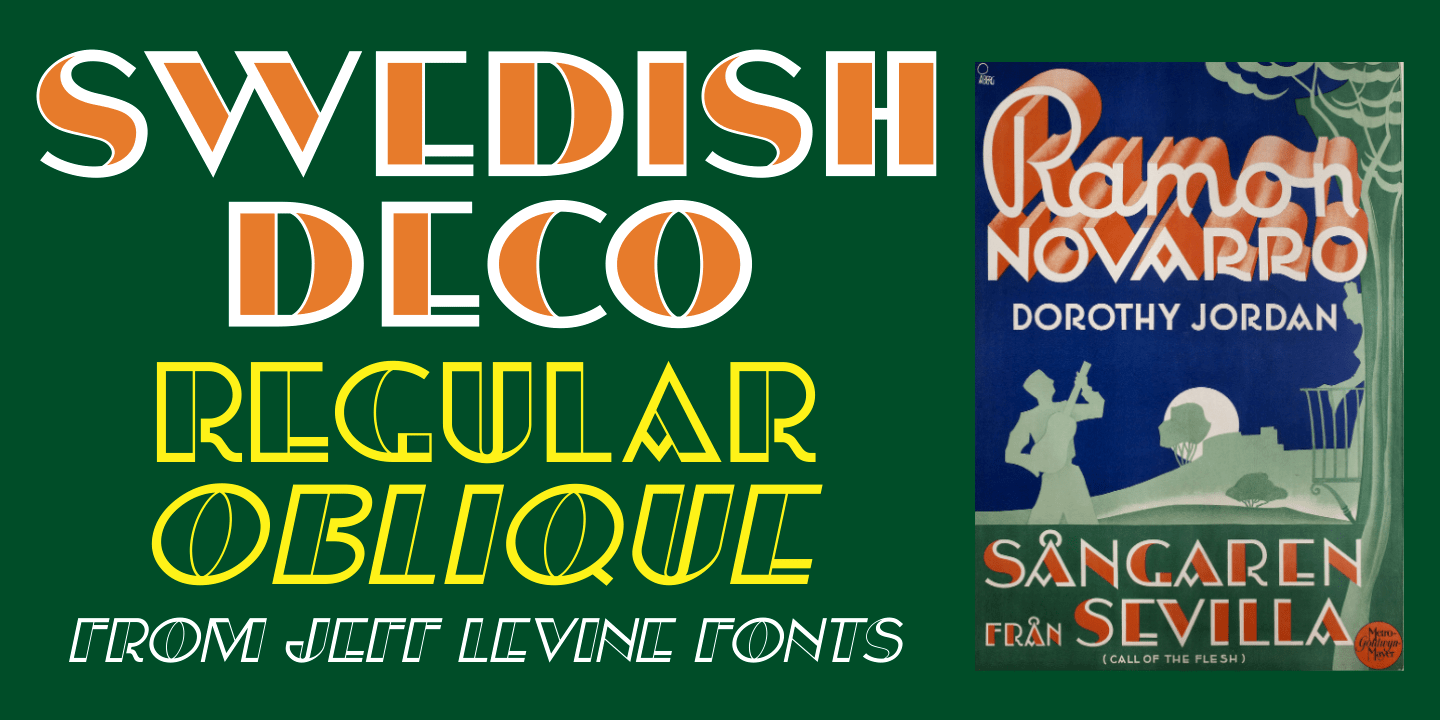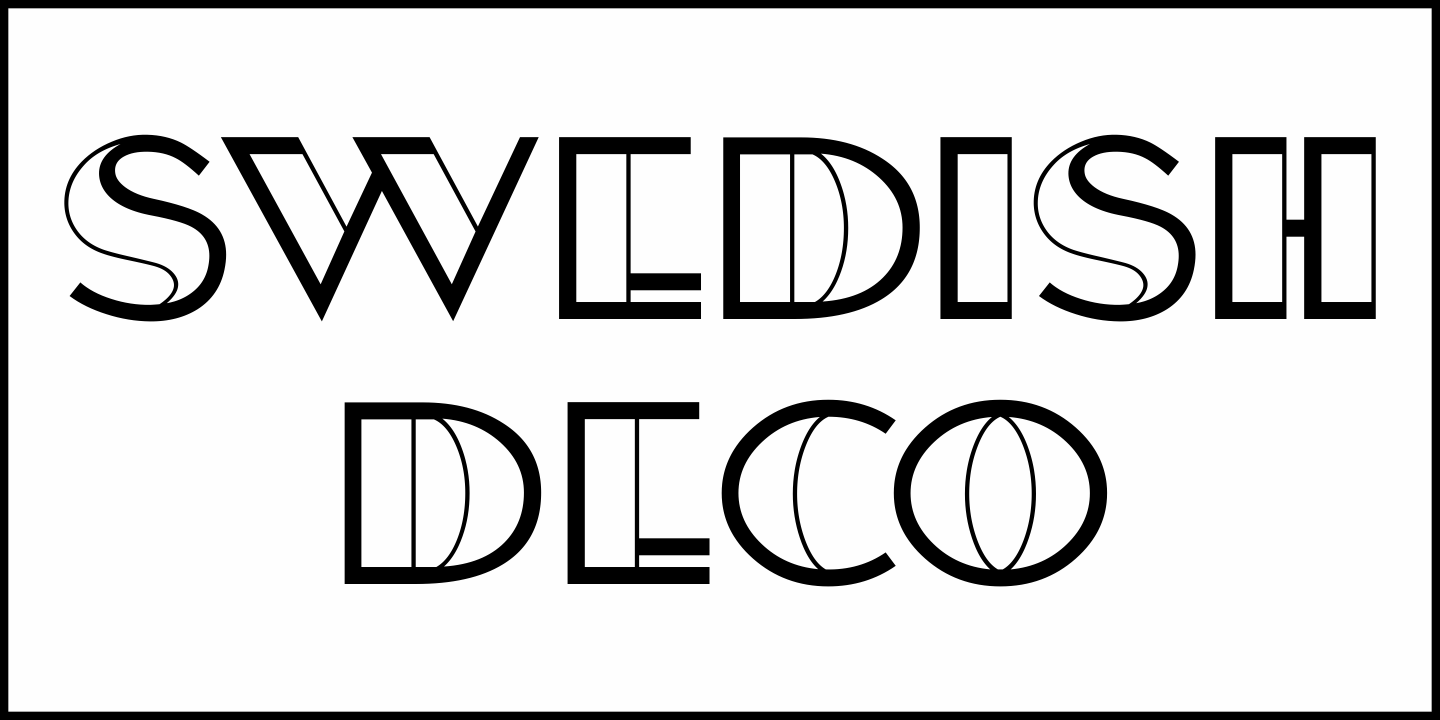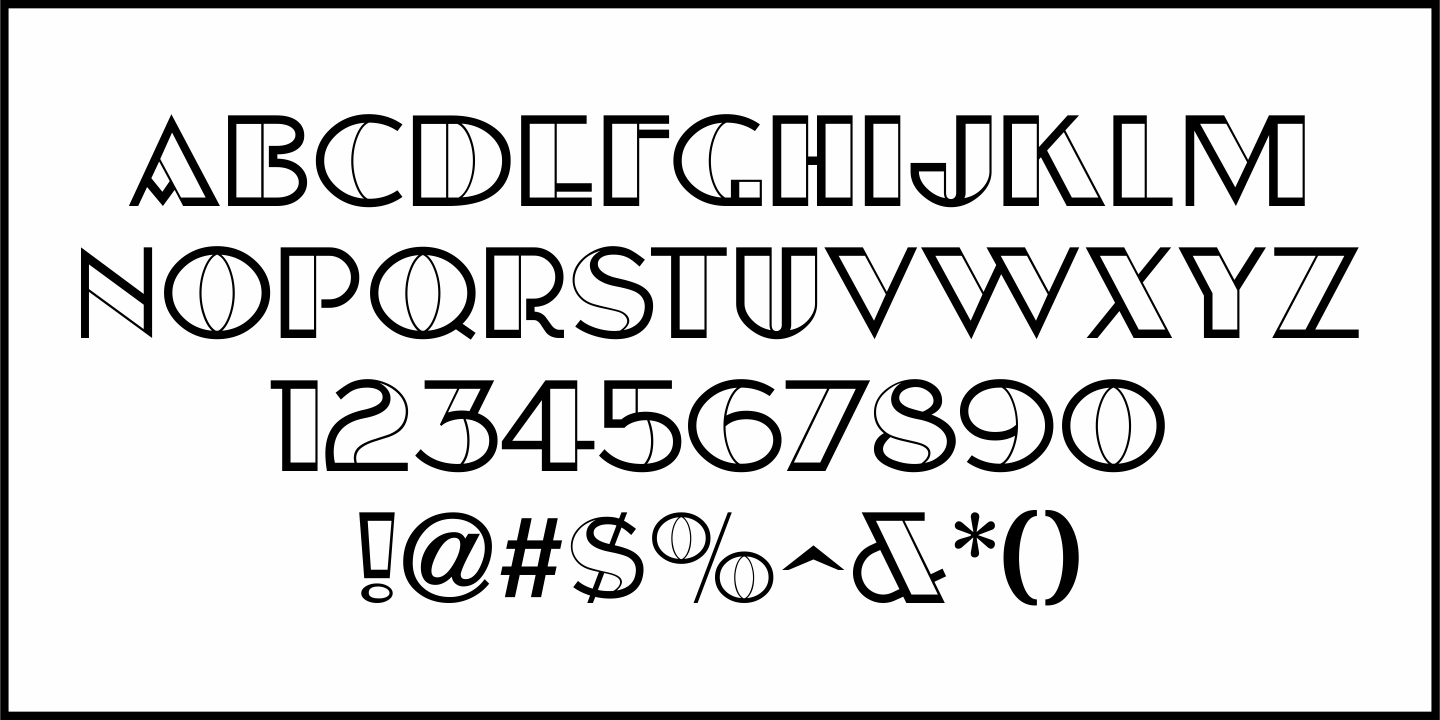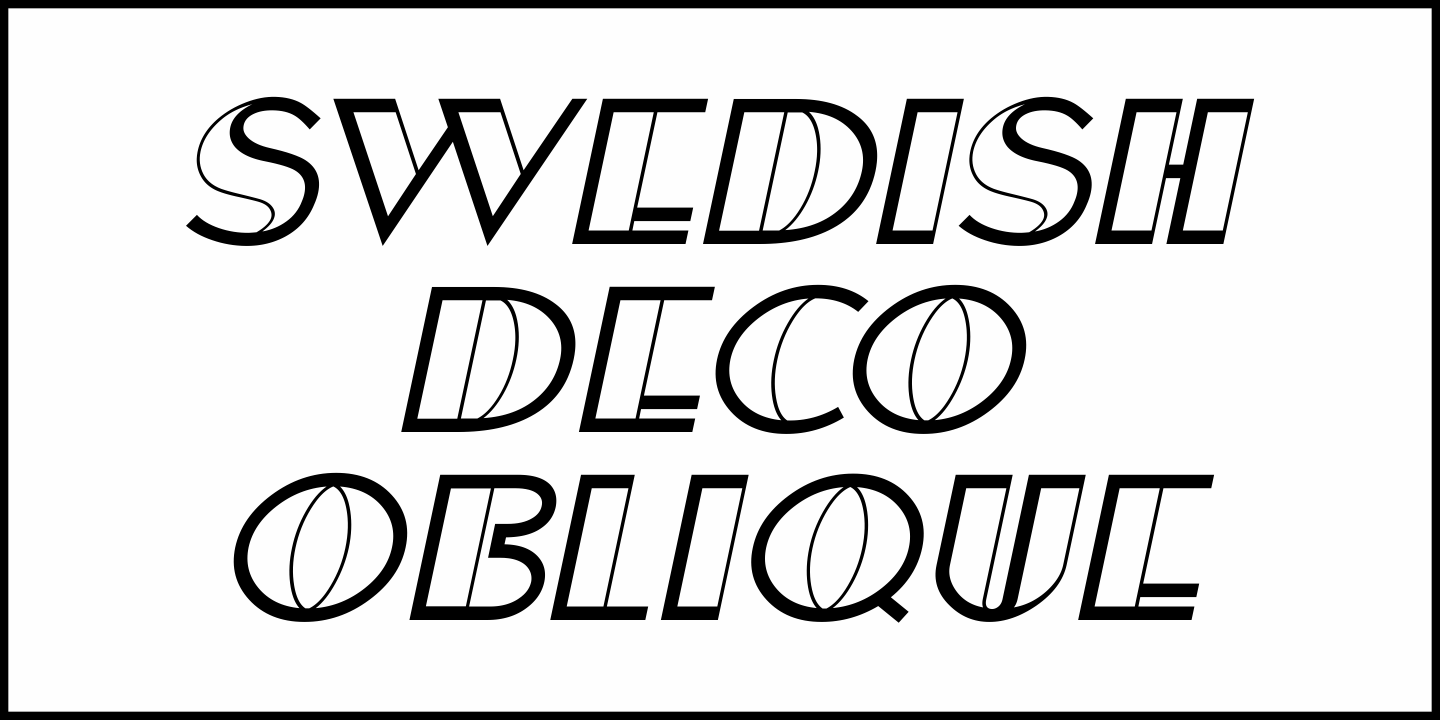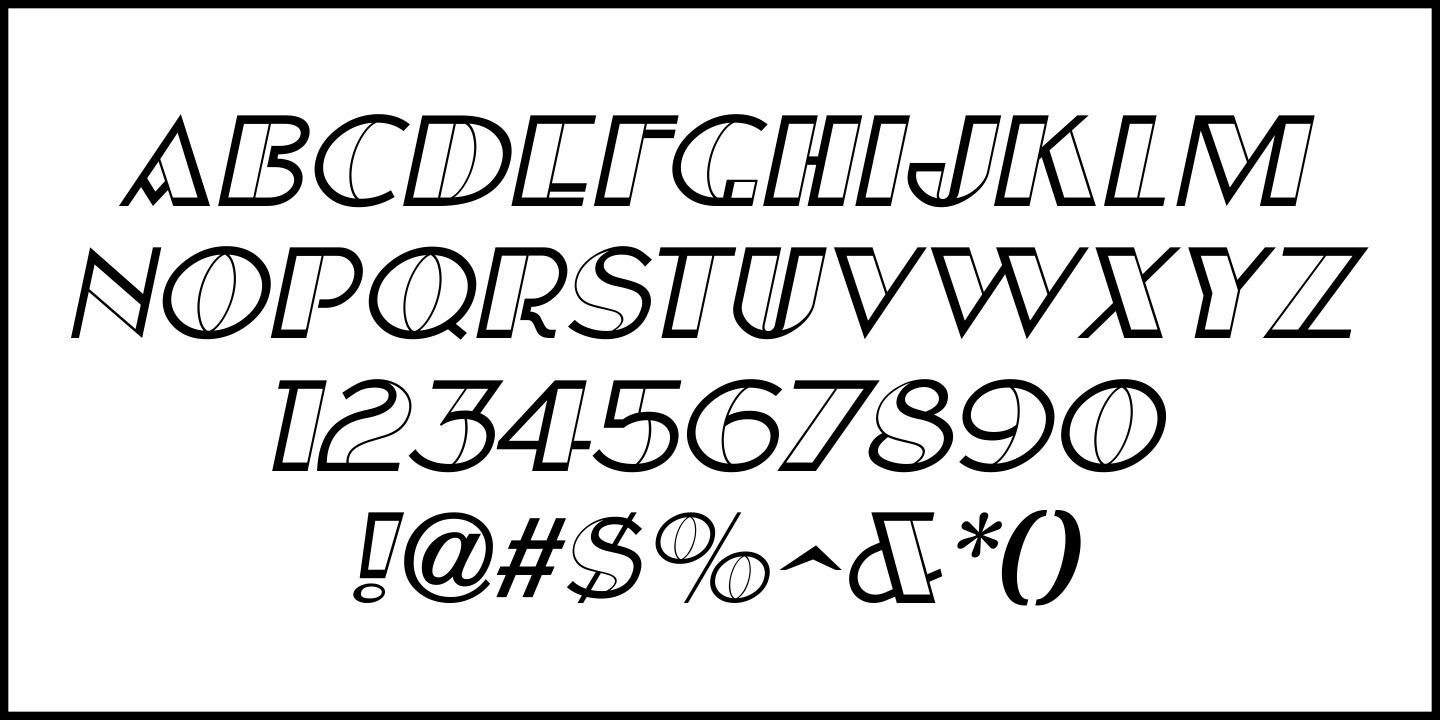
Swedish Deco
This was an interesting experiment in typography.
A Swedish poster for the 1931 MGM film "Call of the Flesh" had the movie's title hand lettered and printed in two colors. In order to keep the original Art Deco design intact, the thick lines of the characters were joined with hairlines simulating the secondary color.
The end result is a thick-and-thin sans serif outline font with attractive and striking contrasts within the letterforms.
This is now available as Swedish Deco JNL, in both regular and oblique versions.
Swedish Deco JNL Regular by Jeff Levine Fonts